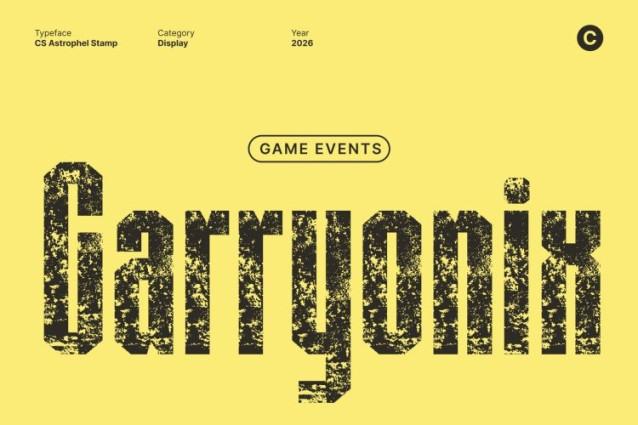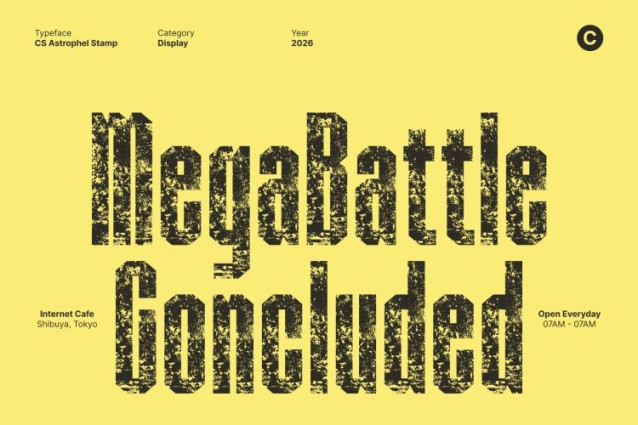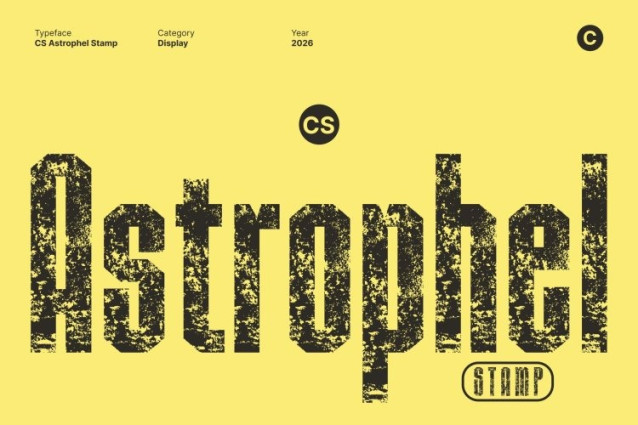
CS Astrophel Stamp Font
CS Astrophel Stamp Font This is a modern sans serif font featuring a bold, condensed structure built for impact and efficiency. Its tall, narrow proportions create a strong vertical rhythm, allowing designers to maximize space without sacrificing visual power. The clean construction delivers a commanding presence that feels precise, confident, and highly functional.
Industrial Aesthetic with Modern Structure
Inspired by industrial and technical design, this font uses strong geometric forms and a straightforward approach to letter construction. Its minimalist foundation conveys professionalism and clarity, while the condensed weight enhances its authoritative tone. This makes the font ideal for designs that demand strength, structure, and contemporary appeal.
Vintage Stamp Texture with Raw Character
The added stamp effect introduces a layer of vintage character and raw texture to the font’s modern form. Subtle imperfections, worn edges, and ink-like details soften the rigid geometry, giving an authentic, tactile feel. This contrast between clean structure and distressed texture creates a bold visual identity with artistic depth.
Versatile Power for Tech, Editorial, and Branding
Perfect for tech branding, corporate identities, editorials, packaging, UI design, and bold headlines, adapts seamlessly across digital and print media. Its condensed efficiency, industrial strength, and vintage stamp texture make it a reliable choice for designers seeking a modern font with grit, character, and lasting impact.